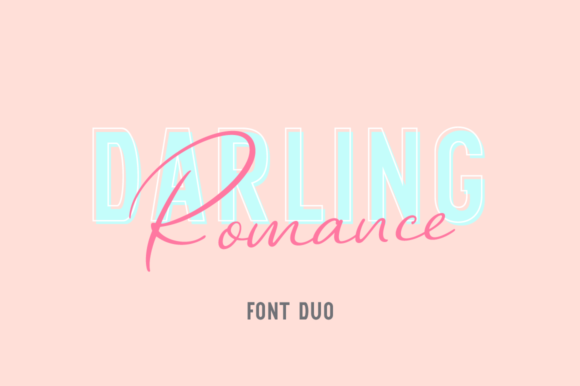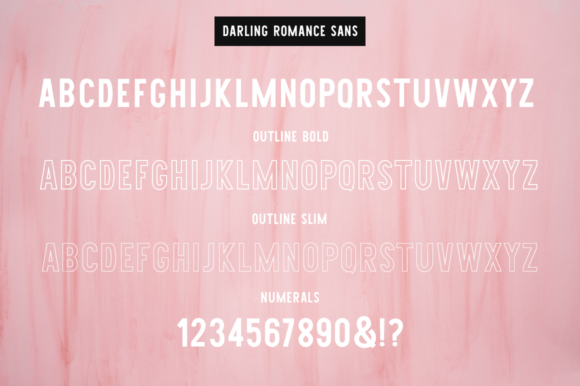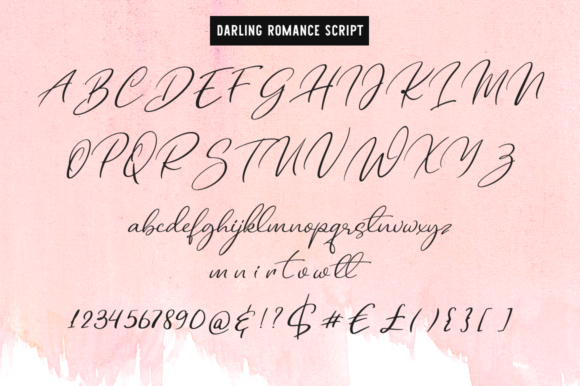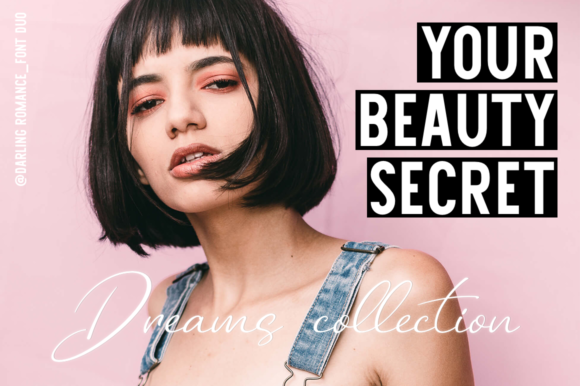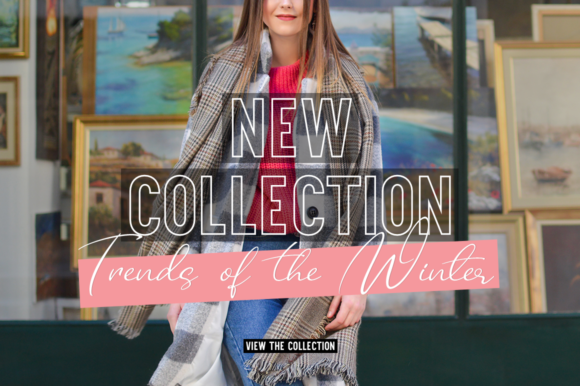
Darling Romance Duo Font
About Darling Romance Duo Font
The Darling Romance is an elegant font duo. It includes various versions which gives you the opportunity to create multiple unique designs with just this one duo!
Its striking and elegant style make it perfect for logos, headers, magazines, posters, quotes, and much more!